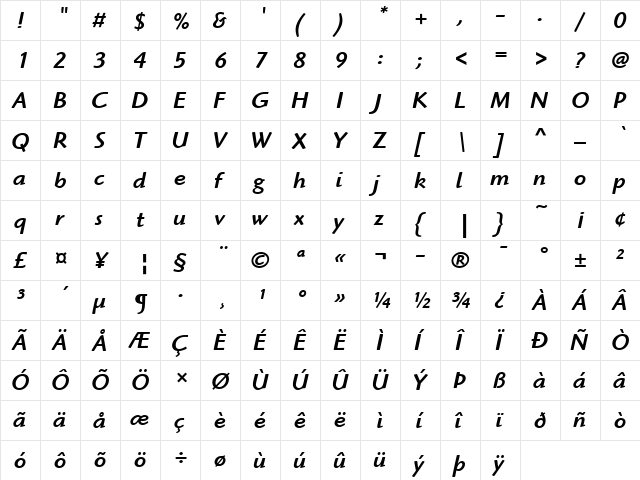
ITCHighlander LT Medium Italic Font Preview
ITCHighlander LT Medium Italic
Design Context for ITCHighlander LT Medium Typeface
ITCHighlander LT Medium is a composed and adaptable typeface that performs quietly and consistently across a wide range of design contexts. The dynamic lean of this cut emphasises speed and emphasis in any layout. Its slender proportions lend an understated elegance to any composition.